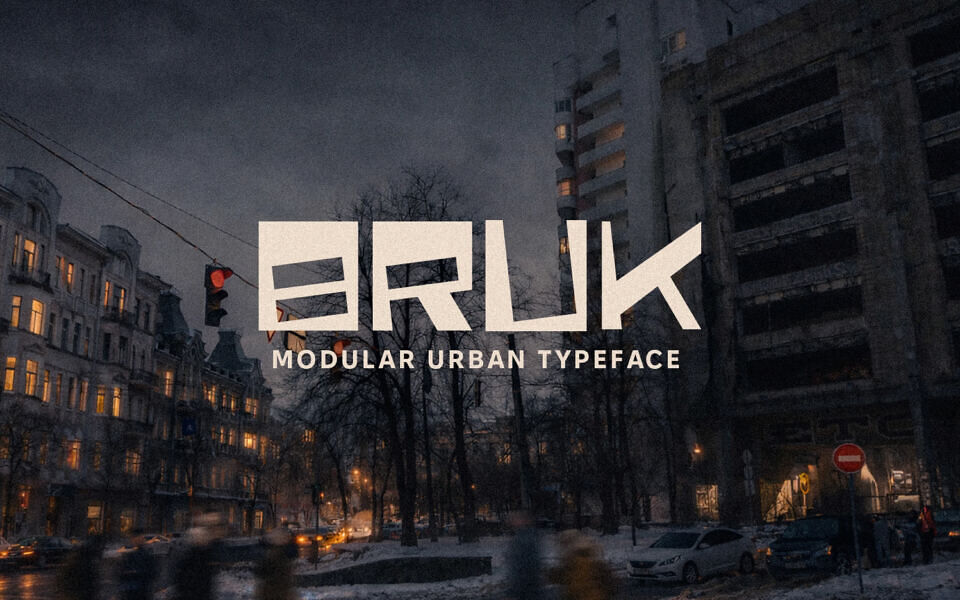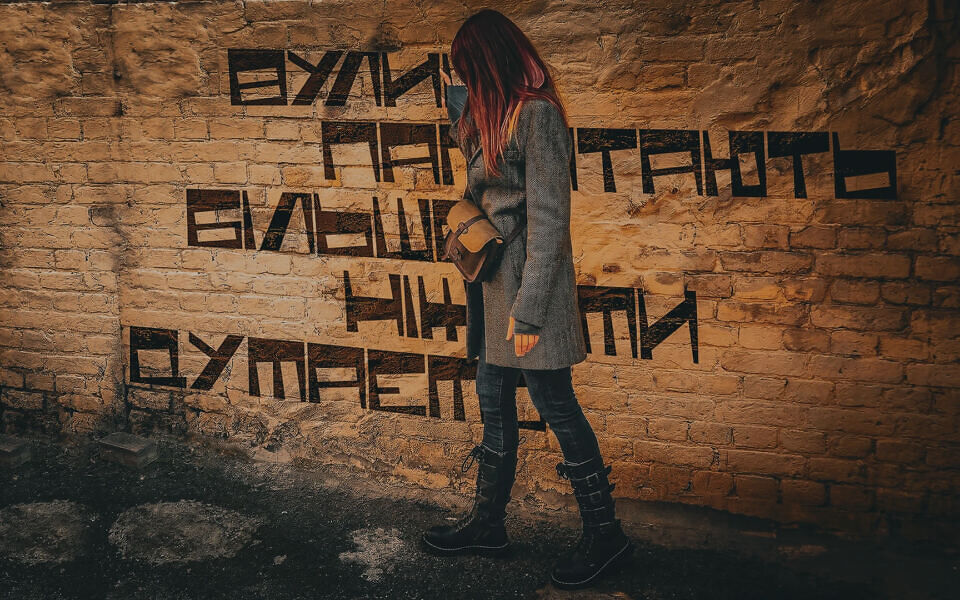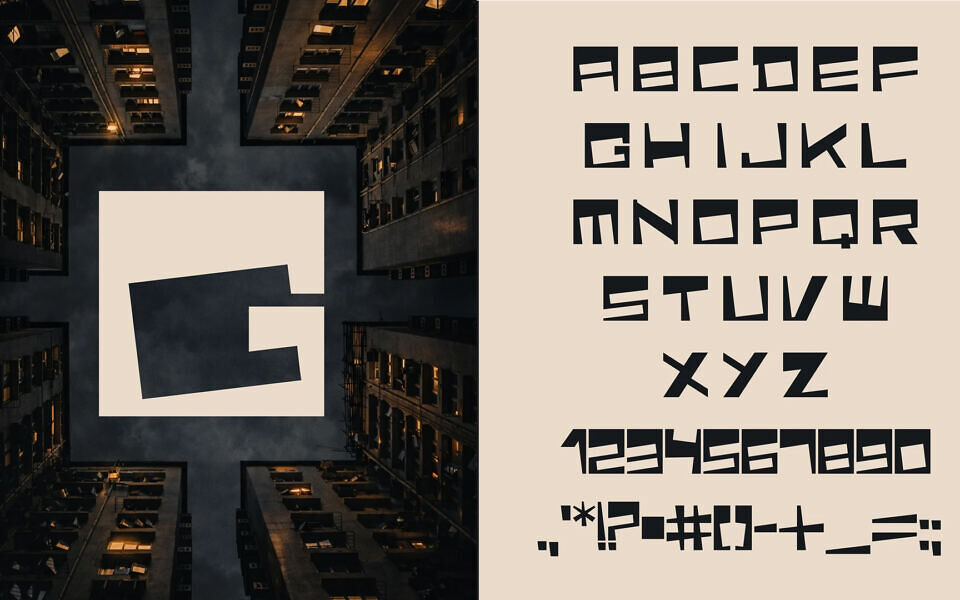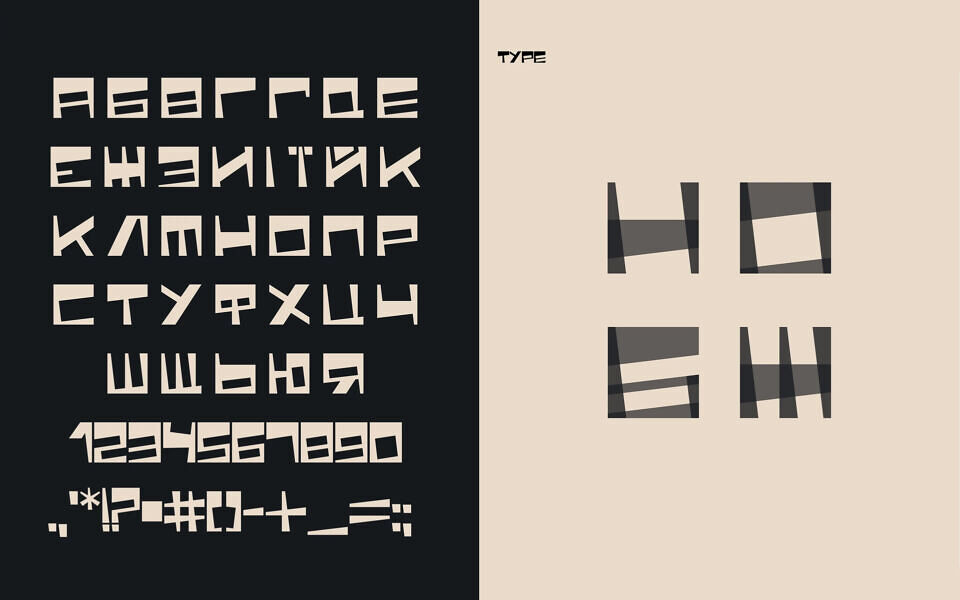
Bruk Font
BRUK is a modular urban typeface inspired by rhythm and architectural structure. Each letter is built as a geometric block, creating a strong, constructed appearance.
Its rigid system is balanced by subtle irregularities, reflecting the imperfect yet dynamic nature of city environments. Bold and expressive, BRUK is ideal for modern branding, posters, and visual identities that seek a structured, industrial, and contemporary aesthetic.
Designed by: Anna Biliaieva